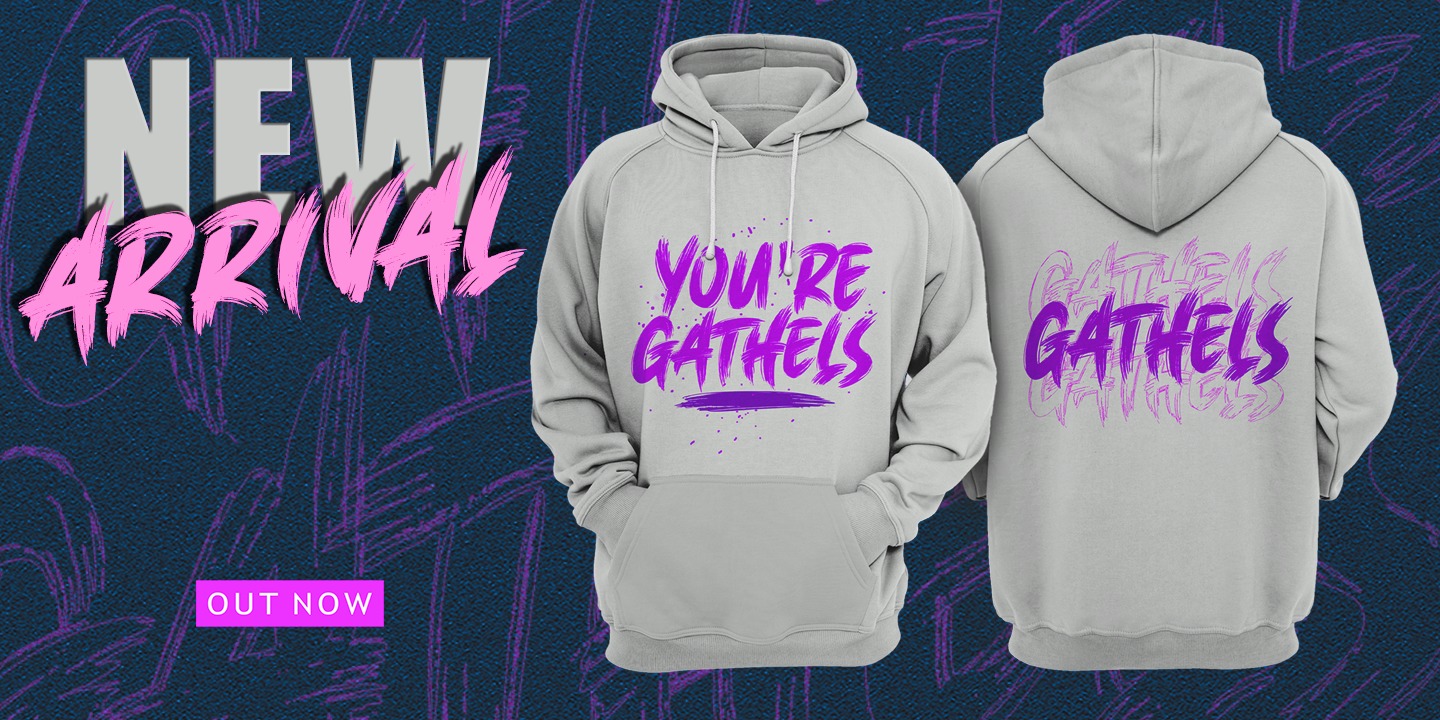
Brush King Font . download brush king font · free for personal use · this is font free for personal use if you need for. It is perfect for logos,. Great for logo and other branding projects, art prints, posters or packaging design. Brush king à € by subectype & orenari. brush king is a cool, brushed and natural display font. Link to purchase full version and commercial license: Click here to create a custom image with your own text. This font is free for personal use. free download of brush king font. 436,185 downloads (180 yesterday) 1 comment free for personal use. Download font free at fontriver. a script font in a dry marker with speed and intimate touch. looking for brush king font designed by subectype & orenari?
download brush king font · free for personal use · this is font free for personal use if you need for. Link to purchase full version and commercial license: Download font free at fontriver. Great for logo and other branding projects, art prints, posters or packaging design. This font is free for personal use. Click here to create a custom image with your own text. free download of brush king font. Brush king à € by subectype & orenari. It is perfect for logos,. a script font in a dry marker with speed and intimate touch.
Brush King Font 436,185 downloads (180 yesterday) 1 comment free for personal use. 436,185 downloads (180 yesterday) 1 comment free for personal use. a script font in a dry marker with speed and intimate touch. This font is free for personal use. Brush king à € by subectype & orenari. free download of brush king font. brush king is a cool, brushed and natural display font. Click here to create a custom image with your own text. Download font free at fontriver. download brush king font · free for personal use · this is font free for personal use if you need for. Great for logo and other branding projects, art prints, posters or packaging design. looking for brush king font designed by subectype & orenari? It is perfect for logos,. Link to purchase full version and commercial license:
Brush King Font Free Download Brush King Font looking for brush king font designed by subectype & orenari? It is perfect for logos,. a script font in a dry marker with speed and intimate touch. Download font free at fontriver. 436,185 downloads (180 yesterday) 1 comment free for personal use. Brush king à € by subectype & orenari. This font is free for personal use. . Brush King Font.
Brush King / Brush Font By Subectype TheHungryJPEG Brush King Font brush king is a cool, brushed and natural display font. Brush king à € by subectype & orenari. free download of brush king font. Link to purchase full version and commercial license: Great for logo and other branding projects, art prints, posters or packaging design. download brush king font · free for personal use · this is. Brush King Font.
BRUSH KING / Brush Font (409425) Regular Font Bundles Brush King Font download brush king font · free for personal use · this is font free for personal use if you need for. Brush king à € by subectype & orenari. a script font in a dry marker with speed and intimate touch. free download of brush king font. 436,185 downloads (180 yesterday) 1 comment free for personal use.. Brush King Font.
Download free Brush King Regular font BrushKingMVVPp.otf Brush King Font brush king is a cool, brushed and natural display font. 436,185 downloads (180 yesterday) 1 comment free for personal use. Link to purchase full version and commercial license: Great for logo and other branding projects, art prints, posters or packaging design. Brush king à € by subectype & orenari. This font is free for personal use. a script. Brush King Font.
Brush King Font Free Download Brush King Font This font is free for personal use. Link to purchase full version and commercial license: 436,185 downloads (180 yesterday) 1 comment free for personal use. looking for brush king font designed by subectype & orenari? a script font in a dry marker with speed and intimate touch. free download of brush king font. It is perfect for. Brush King Font.
Brush King / Brush Font By Subectype TheHungryJPEG Brush King Font This font is free for personal use. Great for logo and other branding projects, art prints, posters or packaging design. It is perfect for logos,. a script font in a dry marker with speed and intimate touch. download brush king font · free for personal use · this is font free for personal use if you need for.. Brush King Font.
Brush King Font font & Desktop MyFonts Brush King Font a script font in a dry marker with speed and intimate touch. Brush king à € by subectype & orenari. looking for brush king font designed by subectype & orenari? Download font free at fontriver. 436,185 downloads (180 yesterday) 1 comment free for personal use. Click here to create a custom image with your own text. brush. Brush King Font.
Brush King / Brush Font By Subectype TheHungryJPEG Brush King Font Great for logo and other branding projects, art prints, posters or packaging design. 436,185 downloads (180 yesterday) 1 comment free for personal use. Brush king à € by subectype & orenari. looking for brush king font designed by subectype & orenari? It is perfect for logos,. a script font in a dry marker with speed and intimate touch.. Brush King Font.
Brush King Font Download Free Free Fonts Vault Brush King Font download brush king font · free for personal use · this is font free for personal use if you need for. This font is free for personal use. brush king is a cool, brushed and natural display font. looking for brush king font designed by subectype & orenari? Link to purchase full version and commercial license: Download. Brush King Font.
Brush King font by Subectype & Orenari FontRiver Brush King Font free download of brush king font. 436,185 downloads (180 yesterday) 1 comment free for personal use. Great for logo and other branding projects, art prints, posters or packaging design. It is perfect for logos,. Click here to create a custom image with your own text. Download font free at fontriver. Brush king à € by subectype & orenari. . Brush King Font.